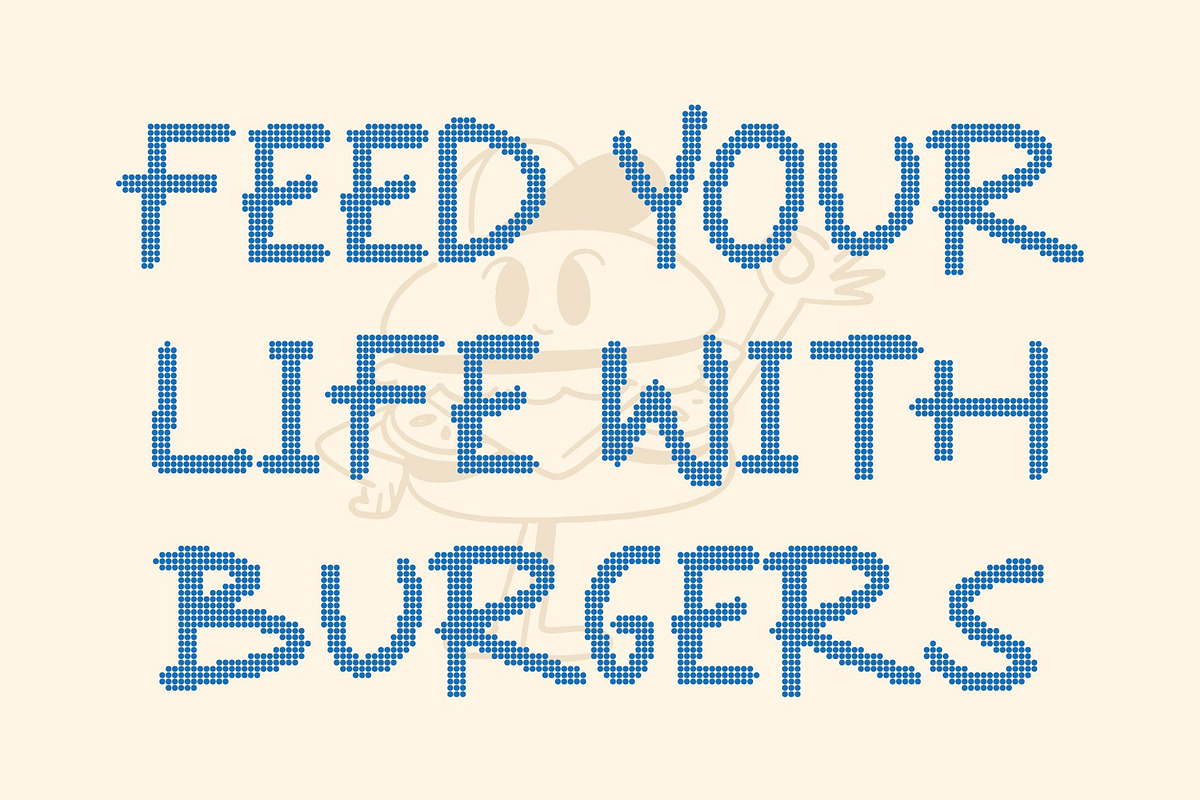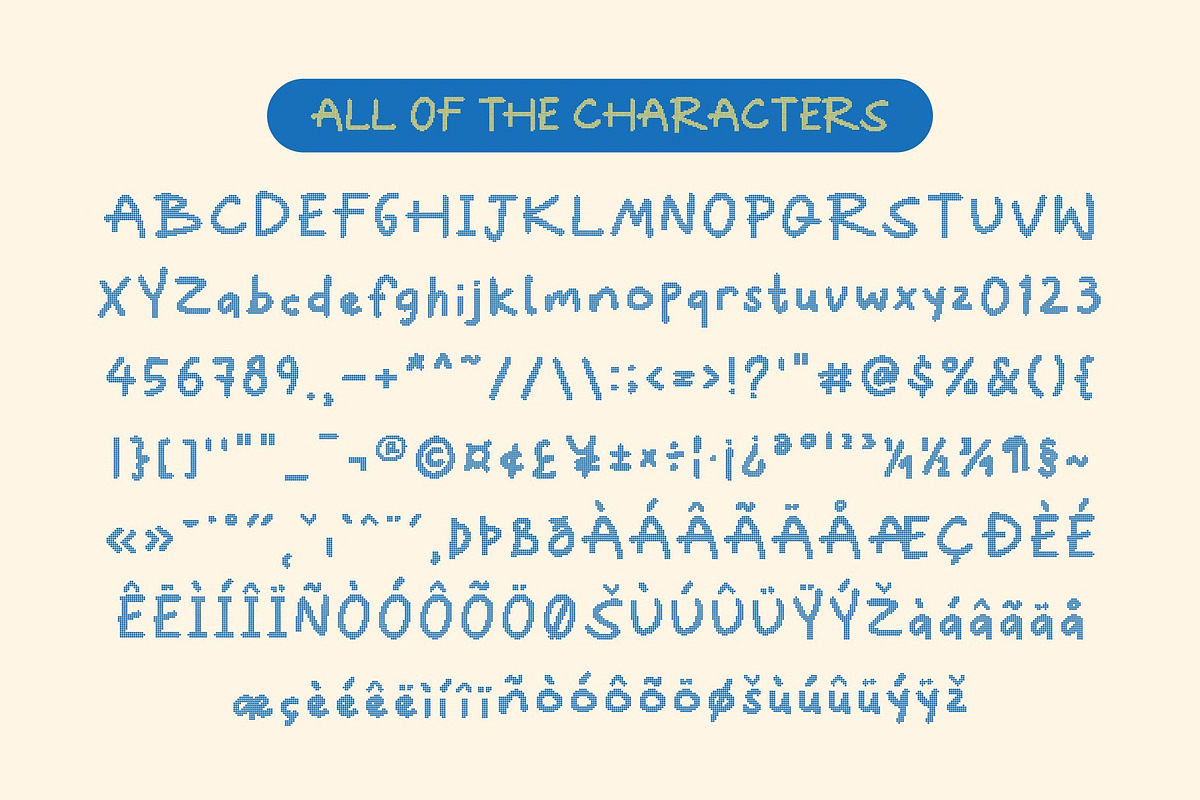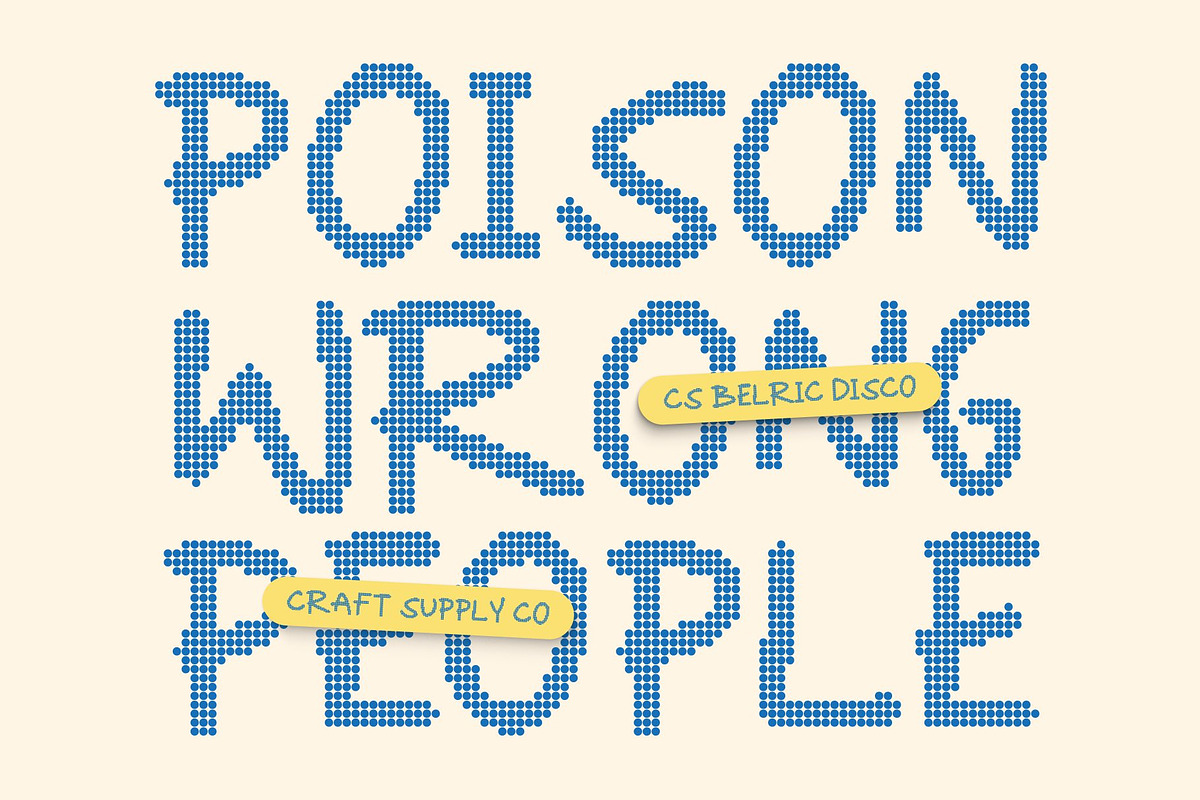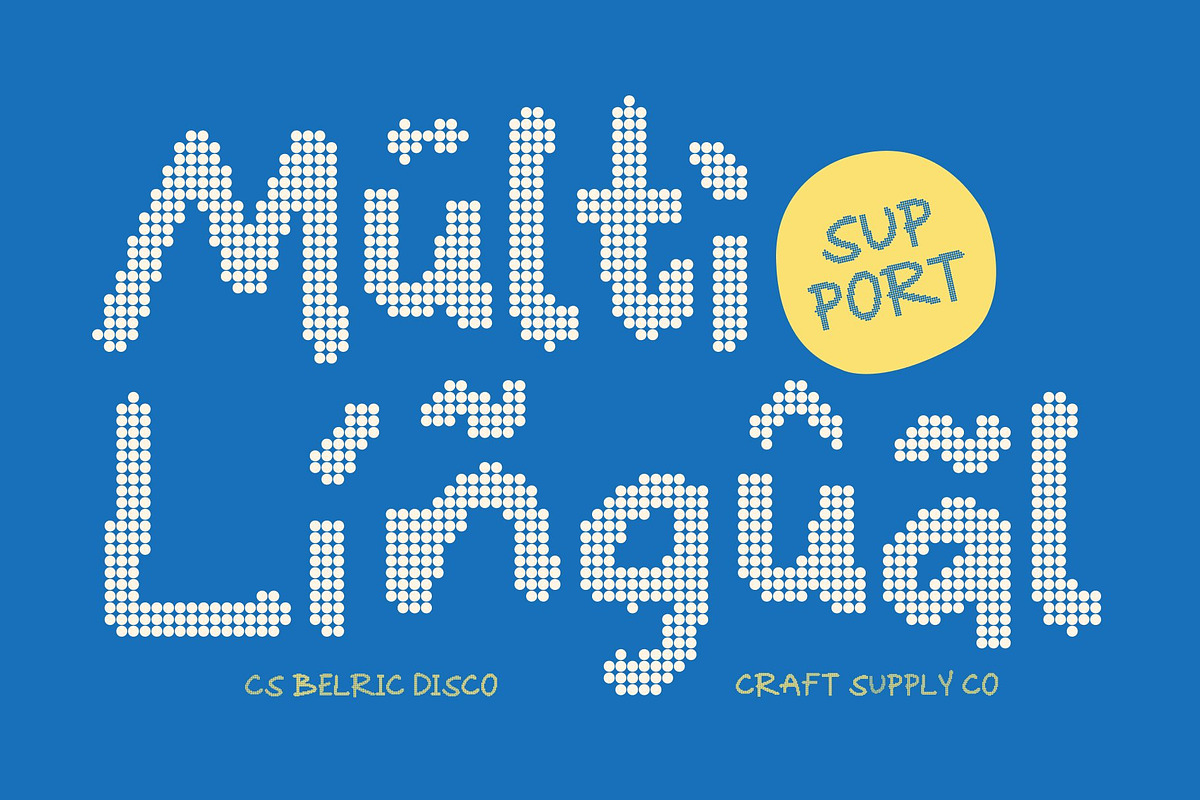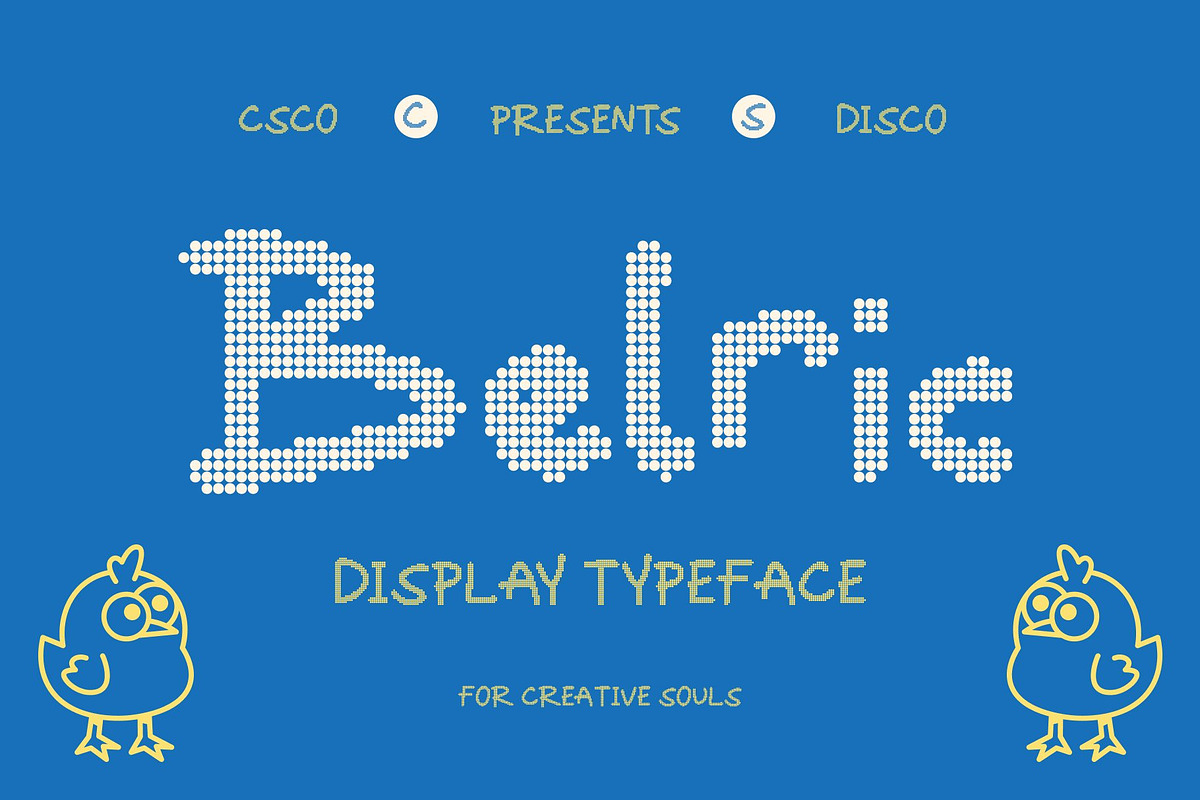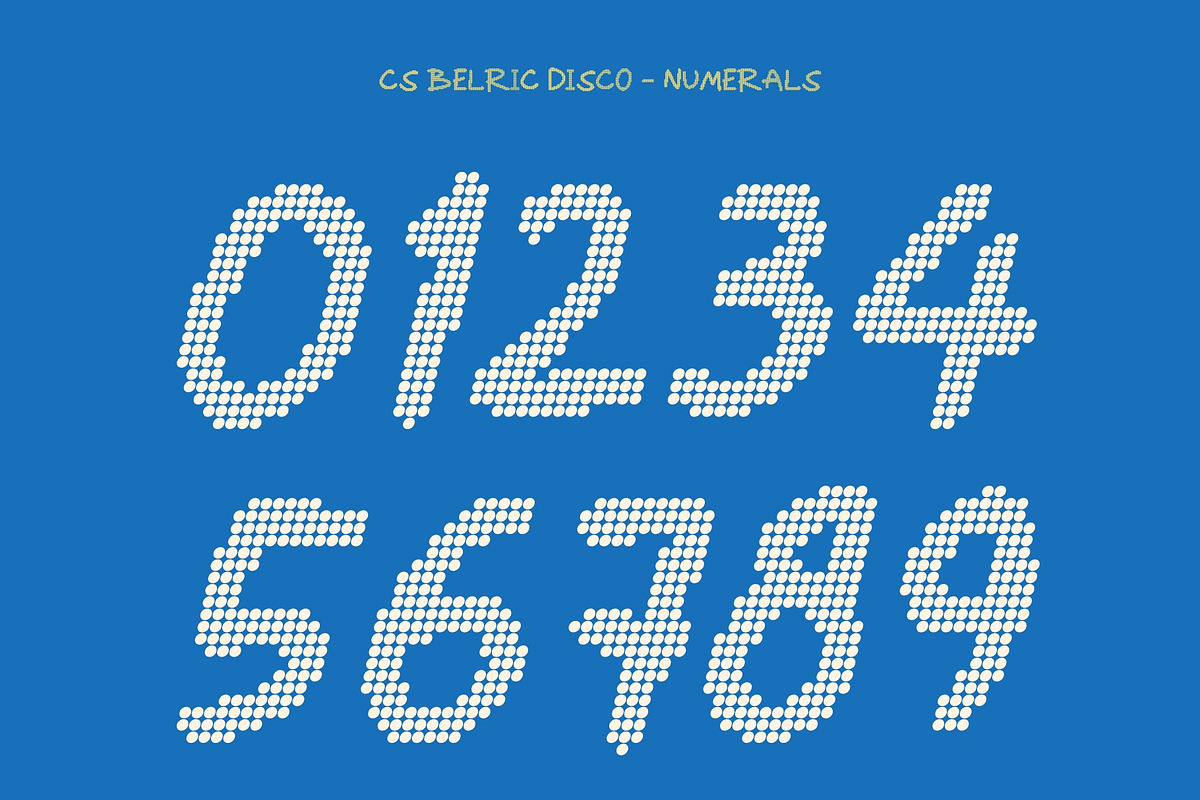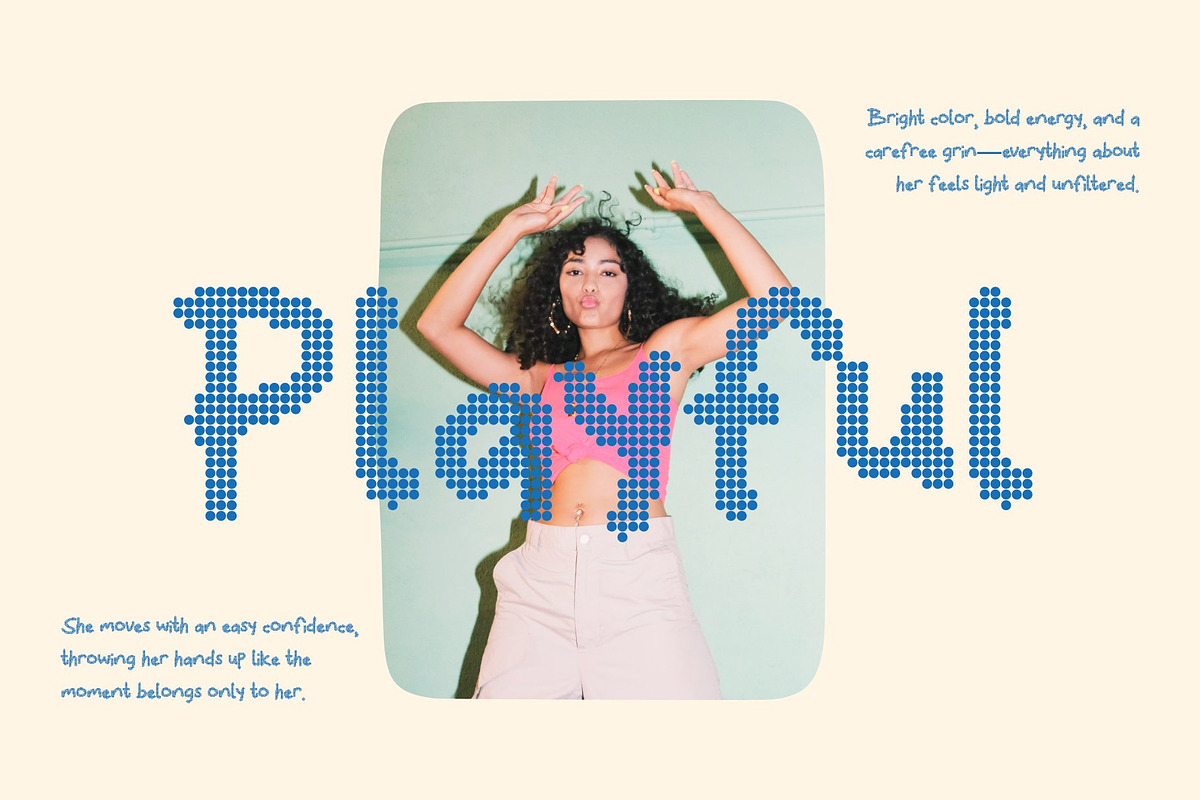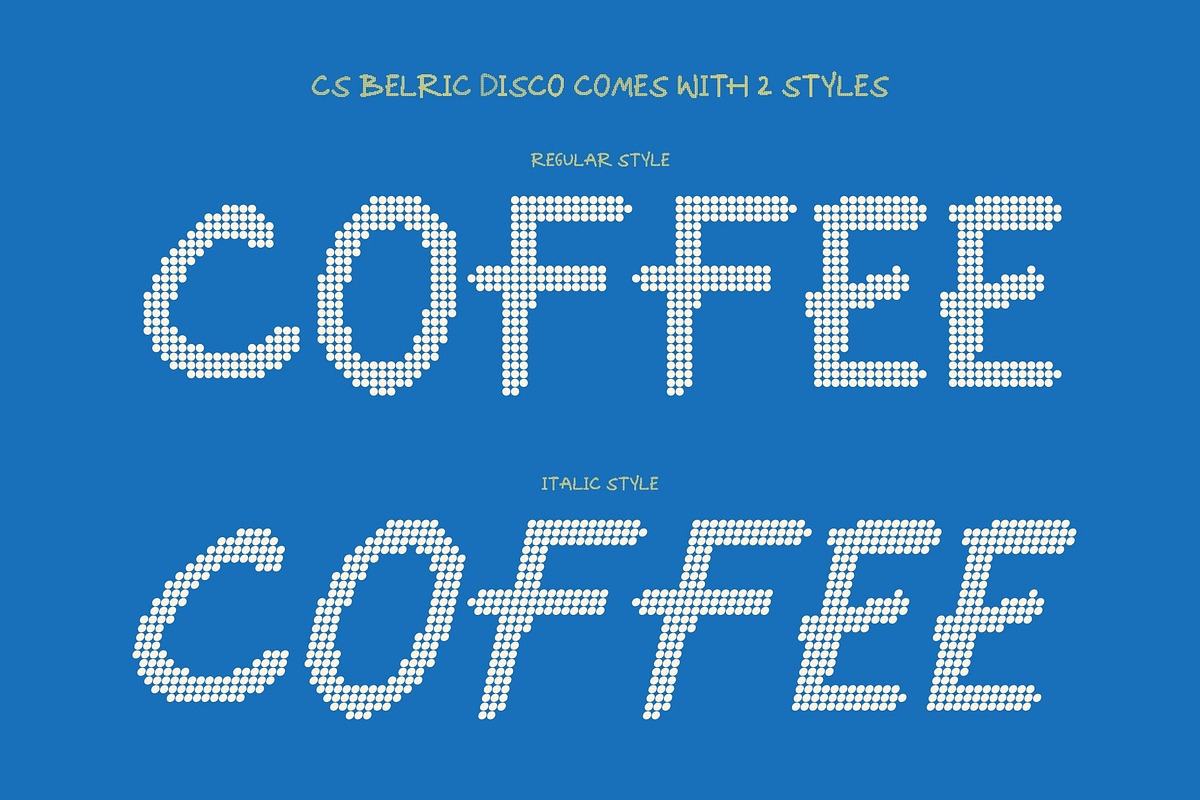
CS Belric Disco
CS Belric Disco – Playful Spirit with Endless Charm
Cute Handwritten Style with Disco Cheer This is a joyful handwritten font that radiates friendliness and upbeat energy in every stroke. With its rounded shapes and smooth, flowing lines, it captures the essence of playfulness now infused with a subtle disco bounce. The lively rhythm of each letter makes text feel animated, expressive, and full of positive vibes.
Rounded Forms for a Warm, Friendly Impression The soft, rounded sans serif letterforms create a comforting and approachable presence. Each curve feels welcoming and full of charm, helping designs connect emotionally with audiences. Its gentle structure brings both sweetness and clarity, making every word feel inviting and easy to love.
Natural Handwritten Feel with Personal Character This font’s authentic handwritten quality gives text a genuine, human touch. Casual yet expressive, it feels spontaneous and heartfelt perfect for greeting cards, children’s materials, social media graphics, and cheerful branding. The combination of natural strokes and playful flow keeps designs feeling fresh and relatable.
Perfect for Fun, Festive, and Creative Projects From kids’ projects and party invitations to playful brand identities and colorful posters, delivers personality and joy in every layout. Its blend of cute form, friendly rhythm, and lively energy ensures your designs shine with creativity, warmth, and unforgettable charm.
CS Belric Disco Regular
CS Belric Disco Italic